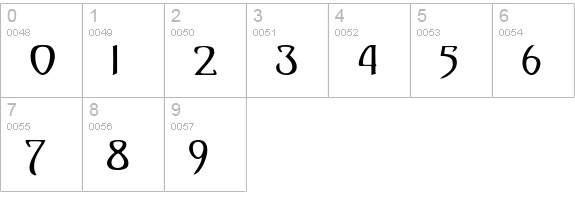
Monmondo Font Details
Monmondo is a stylish and versatile font that exudes sophistication and elegance. With its sleek lines and modern aesthetic, this font is perfect for a variety of design projects, from branding to editorial design. Monmondo is a free font that is available to download at FontsMarket.com, making it accessible for designers looking to add a touch of class to their work without breaking the bank. Whether you're creating a logo, poster, or website, Monmondo is sure to make a statement and elevate your design to the next level.